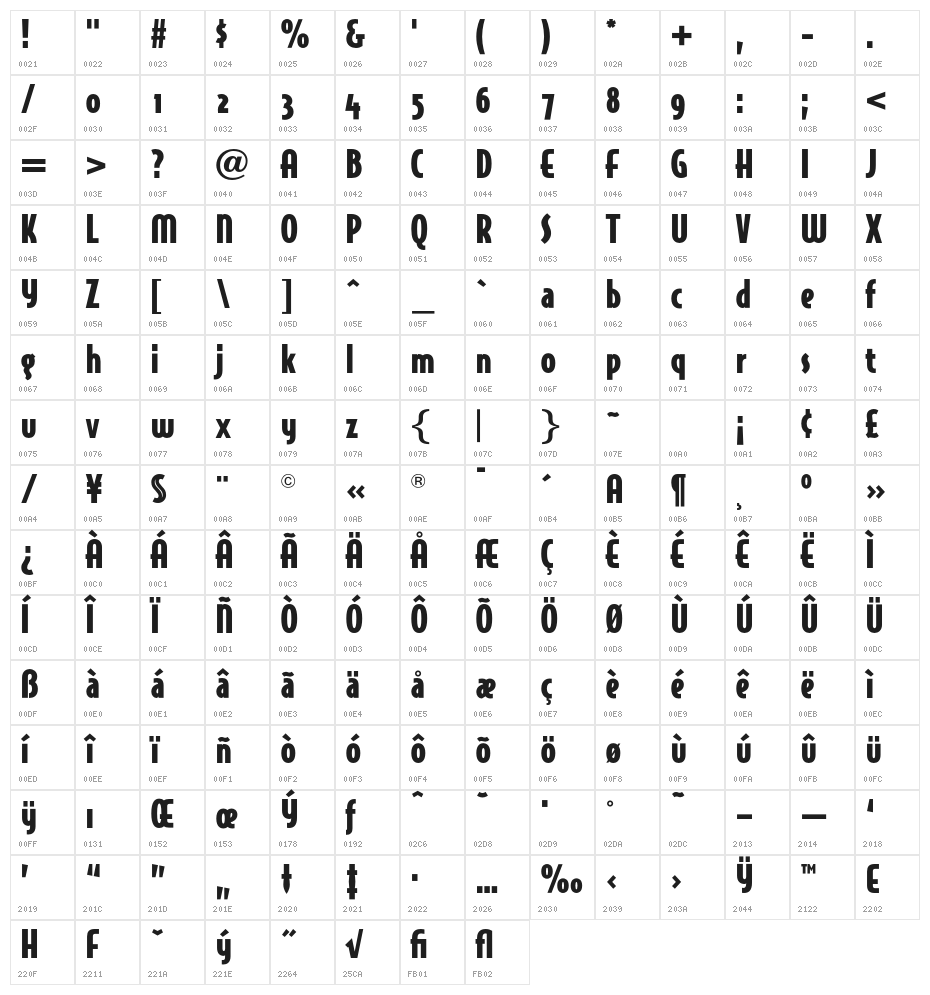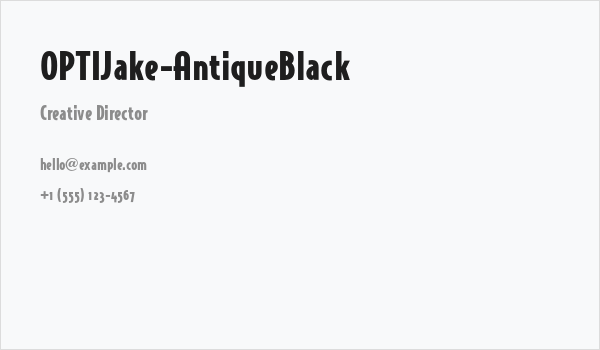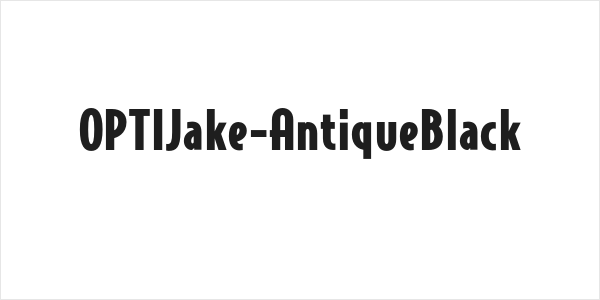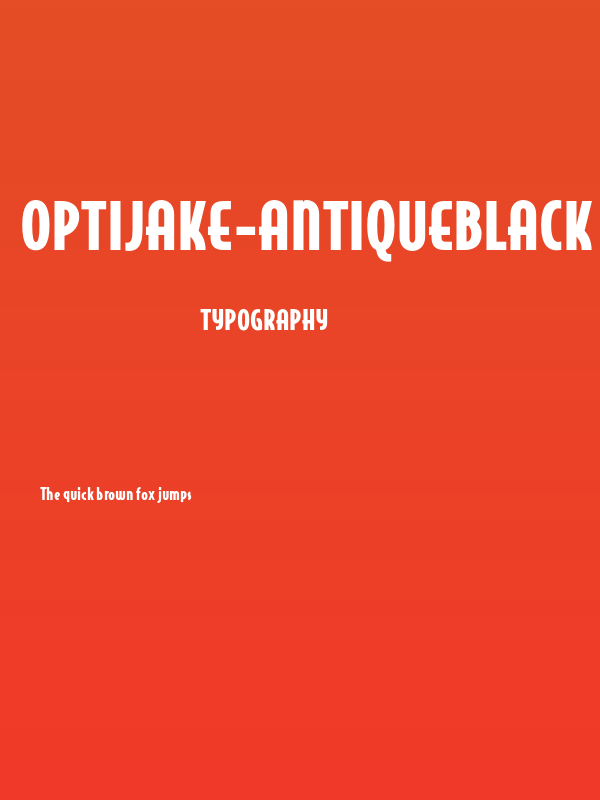
OPTIJake-AntiqueBlack Font
OPTIJake-AntiqueBlack Description
This font features a bold and striking design with a strong presence. The characters are thick and robust, with a slightly condensed width that gives them a compact appearance. The uppercase letters have a uniform height, while the lowercase letters maintain a consistent baseline, enhancing readability. The numbers are equally bold, ensuring they stand out in any context. Special characters are designed with the same boldness, making them easily distinguishable. The overall style is reminiscent of vintage signage, with a modern twist that makes it suitable for contemporary use.
Overall StyleVintage
Proposed ProjectsIdeal for branding, poster design, headlines, and any project requiring a strong visual impact.